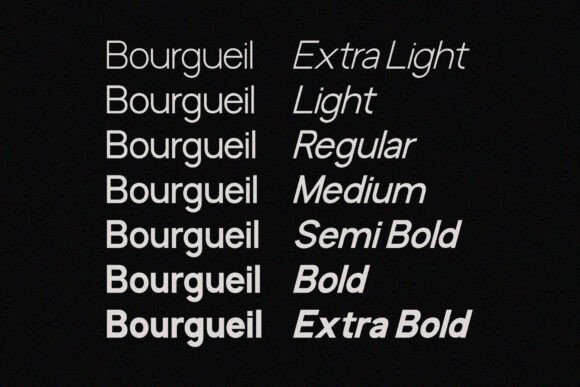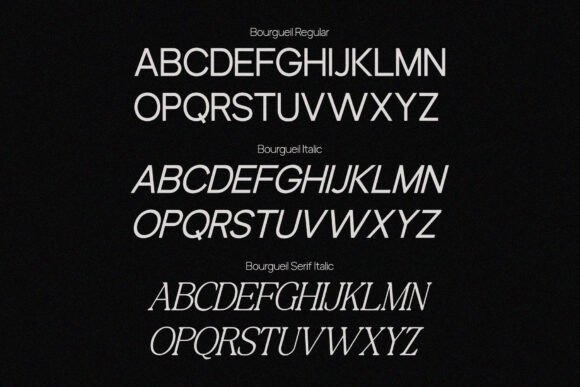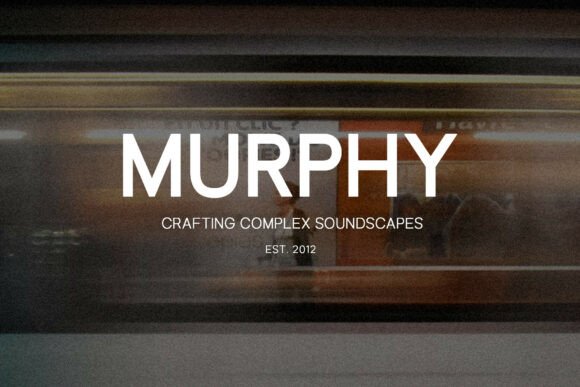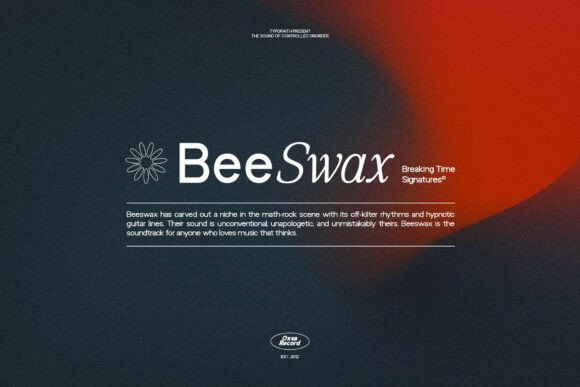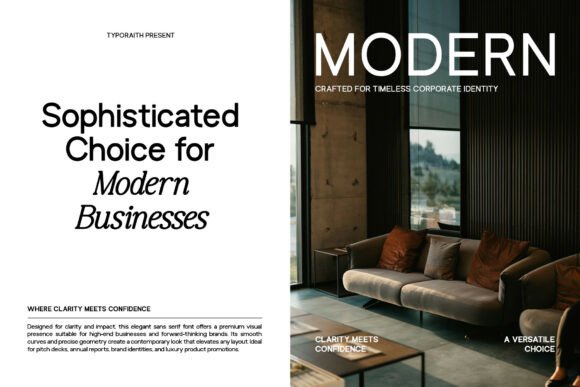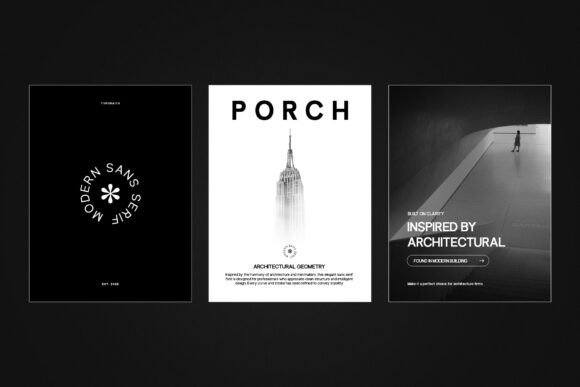
The Power of a Perfect Font
Have you ever stared at a blank page, waiting for inspiration to strike, only to have a single word or phrase suddenly leap out at you? For designers, that moment of clarity can be a game-changer. It’s the moment when the perfect font comes to mind, and suddenly, your entire project starts to take shape. For many designers, that perfect font is the Bourgueil Font – a modern variable sans serif typeface that’s as versatile as it is elegant.
Designed with clarity, elegance, and flexibility in mind, the Bourgueil Font is a valuable tool for designers looking to create strong visual hierarchies, from subtle typography to bold statements. With 7 variable weights and a matching italic style, this font gives designers the freedom to experiment and push the boundaries of their creativity.
Bourgueil Font Key Features
- Unique Characteristics: The font features a unique blend of modern and traditional elements, making it ideal for use in branding and design projects that require a distinctive look.
- Font Width: Bourgueil Font is a medium-width font, making it suitable for use in body text, headings, and titles.
Bourgueil Font Review
Overall, I think Bourgueil Font is a decent choice for designers looking for a elegant and classic sans-serif typeface. ✨ Its clean lines and rounded edges give it a friendly and approachable feel that works well for various applications, including branding, advertising, and editorial content.
Here are some things that Bourgueil Font does well:
- ✨ Its legibility is excellent, making it easy to read even at small font sizes.
- ✨ The font’s classic feel makes it suitable for formal and professional projects.
- ✨ The font is highly versatile and can be used for a wide range of applications, from body text to headlines.
- ⚠️ The font may appear a bit too generic and lacking in personality for some designers.
- ⚠️ The font’s rounded edges may not be suitable for projects that require a more modern or edgy feel.
- ⚠️ The font’s character set may not be as extensive as some other sans-serif typefaces.
Overall, I think Bourgueil Font is a solid choice for designers who want a classic and elegant sans-serif typeface. While it may not be the most exciting or innovative font, it gets the job done and is easy to work with.
The Bourgueil font is suitable for various design applications, including:
- Brand identity and logo design
- Publication and book design
- Editorial and advertising design